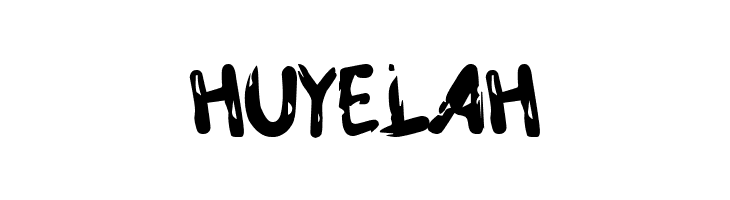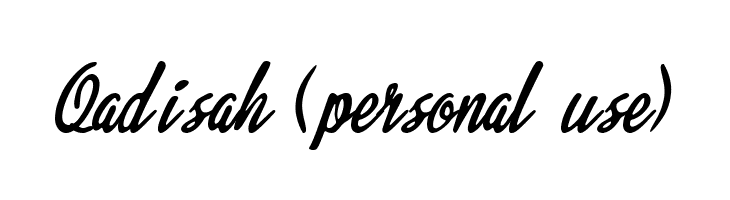
A bold, playful handwritten font with a dynamic and friendly style.
A bold, expressive script font with flowing, cursive letterforms.
A bold, playful handwritten font with thick strokes and dynamic shapes.
A bold, brush-style font with an expressive, artistic flair.
A dynamic, brush-style cursive font with elegant swashes and fluid strokes.
An elegant and flowing script font with connected letterforms.
A grid-based outline font with a geometric and modern style.
A sophisticated cursive font with elegant, flowing lines.
A bold, cursive font with elegant loops and a calligraphic style.
A bold, modern font with a geometric and industrial style.